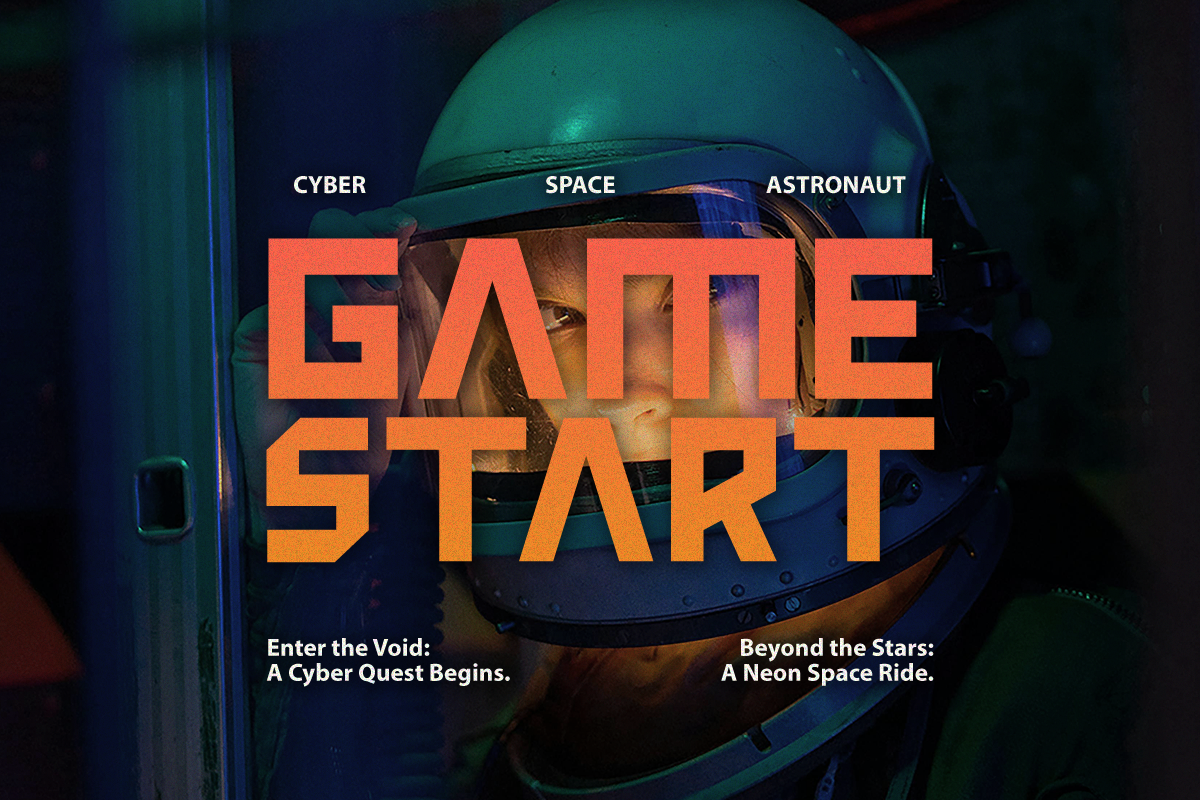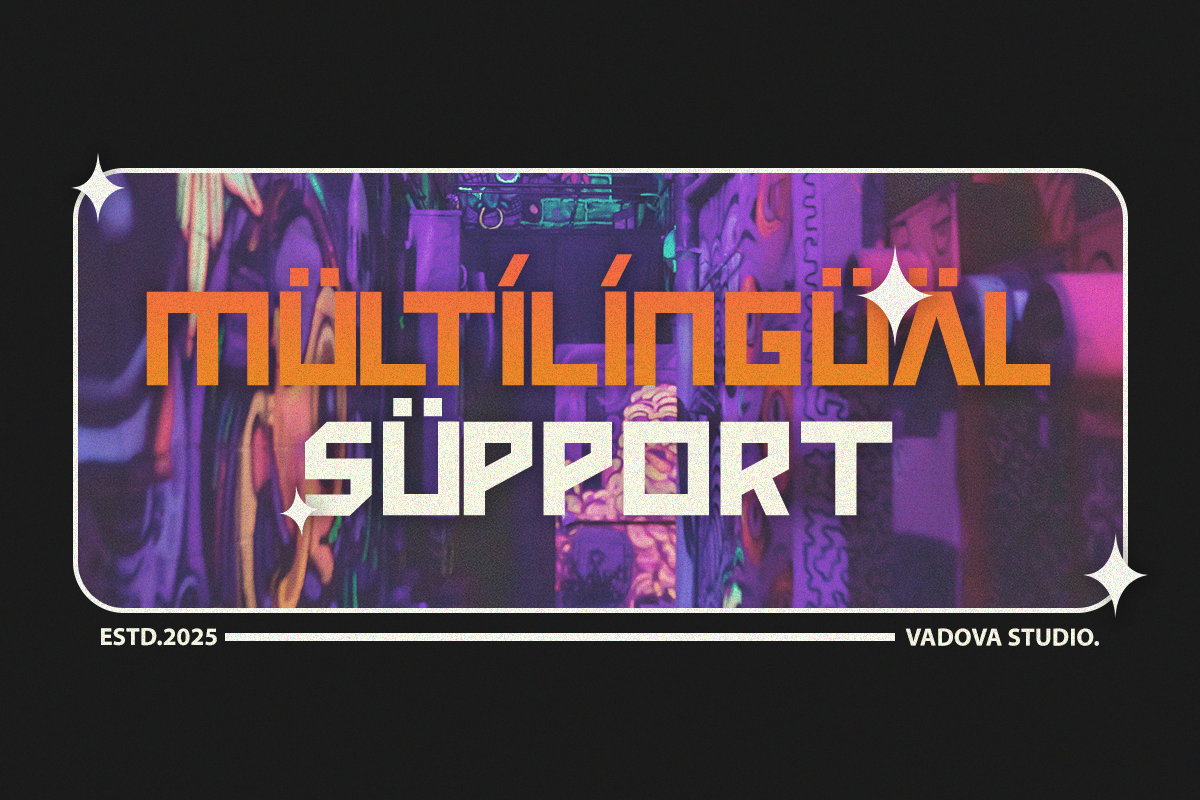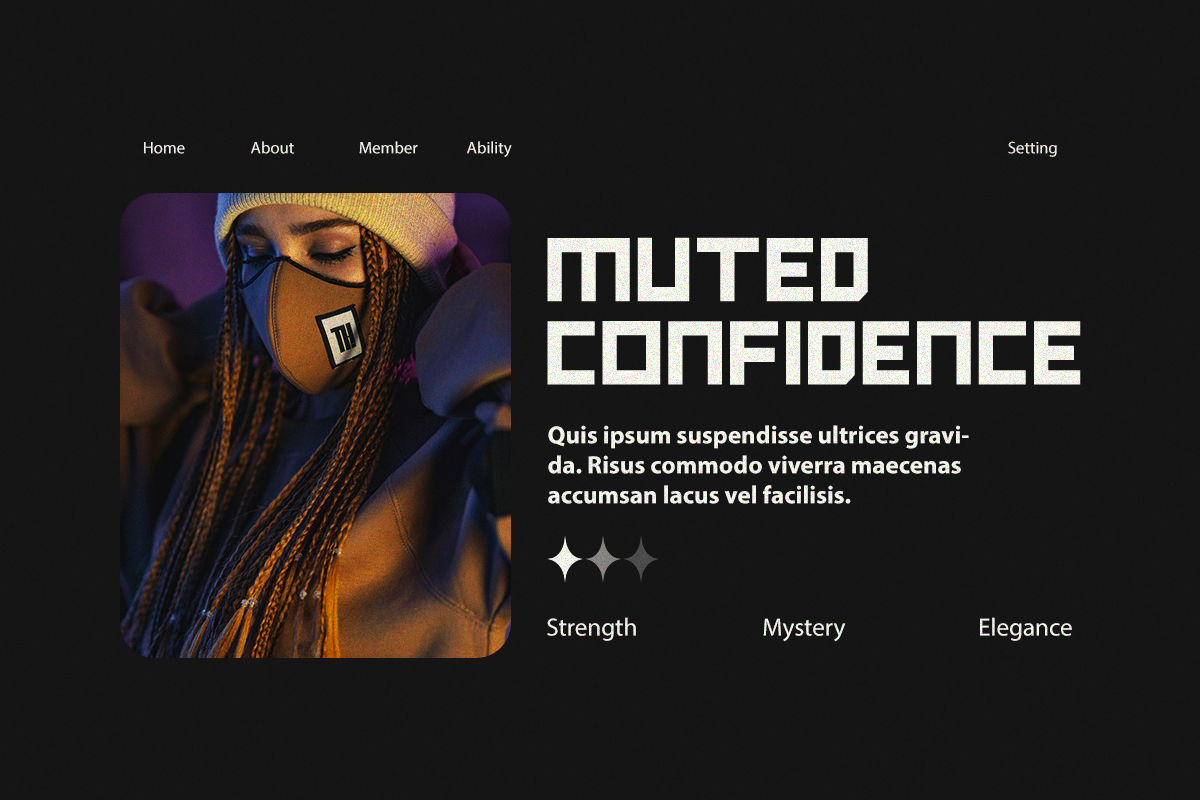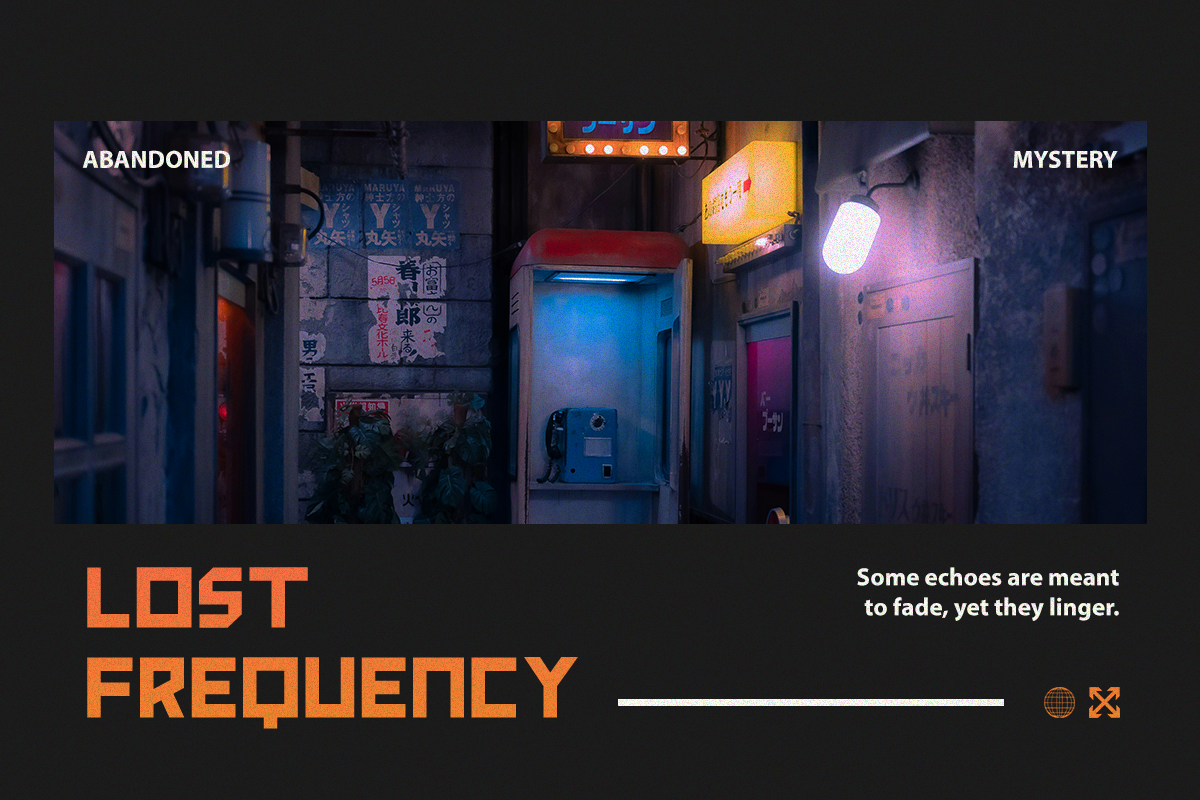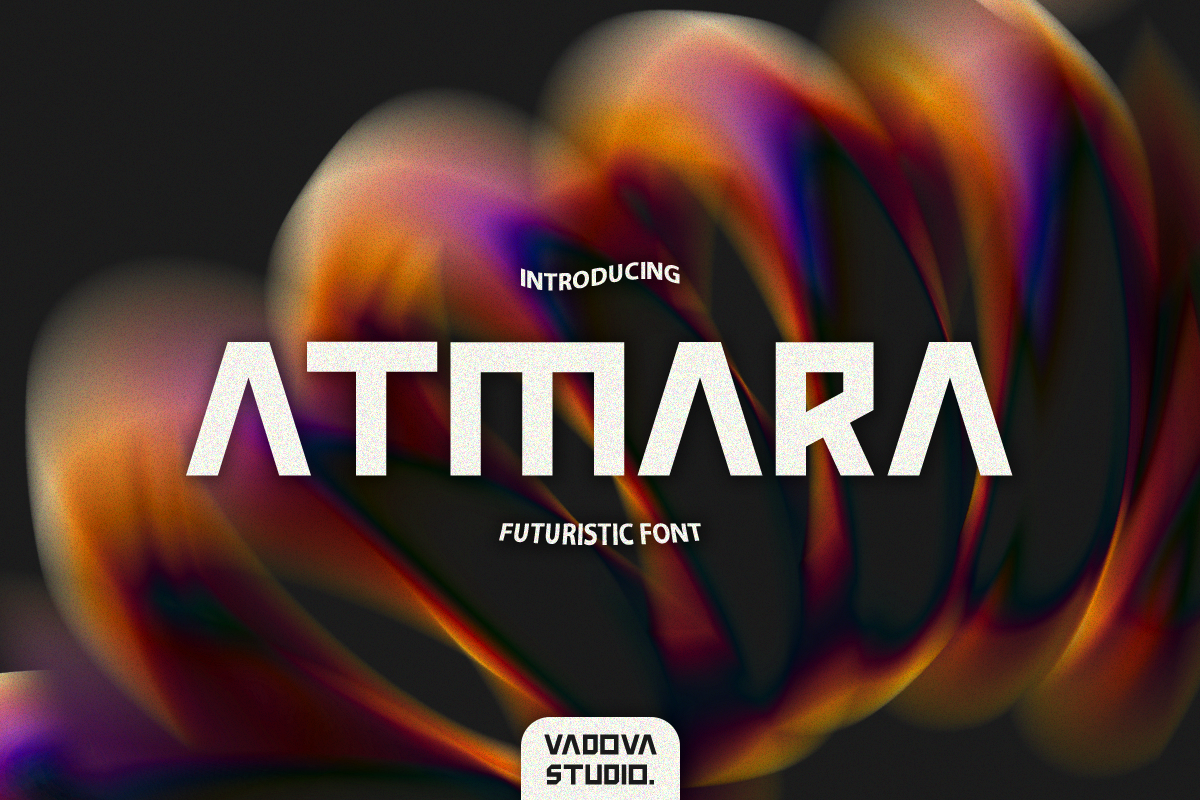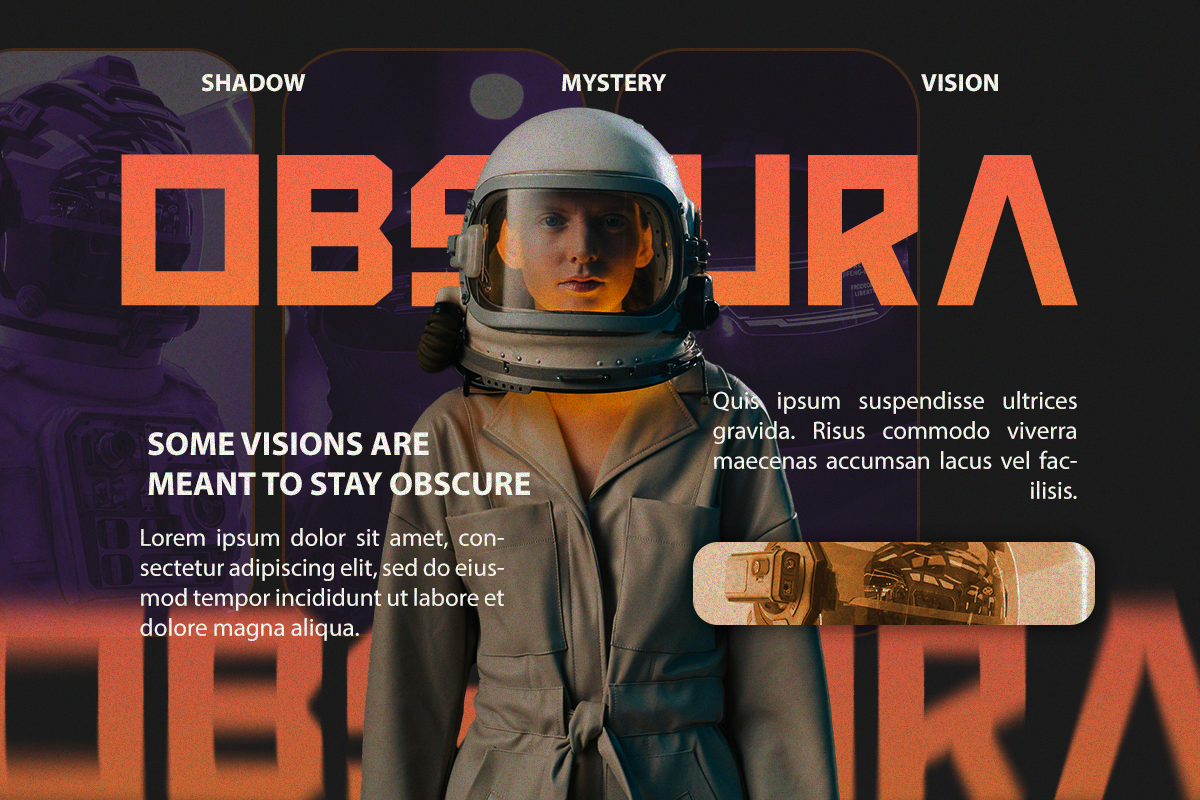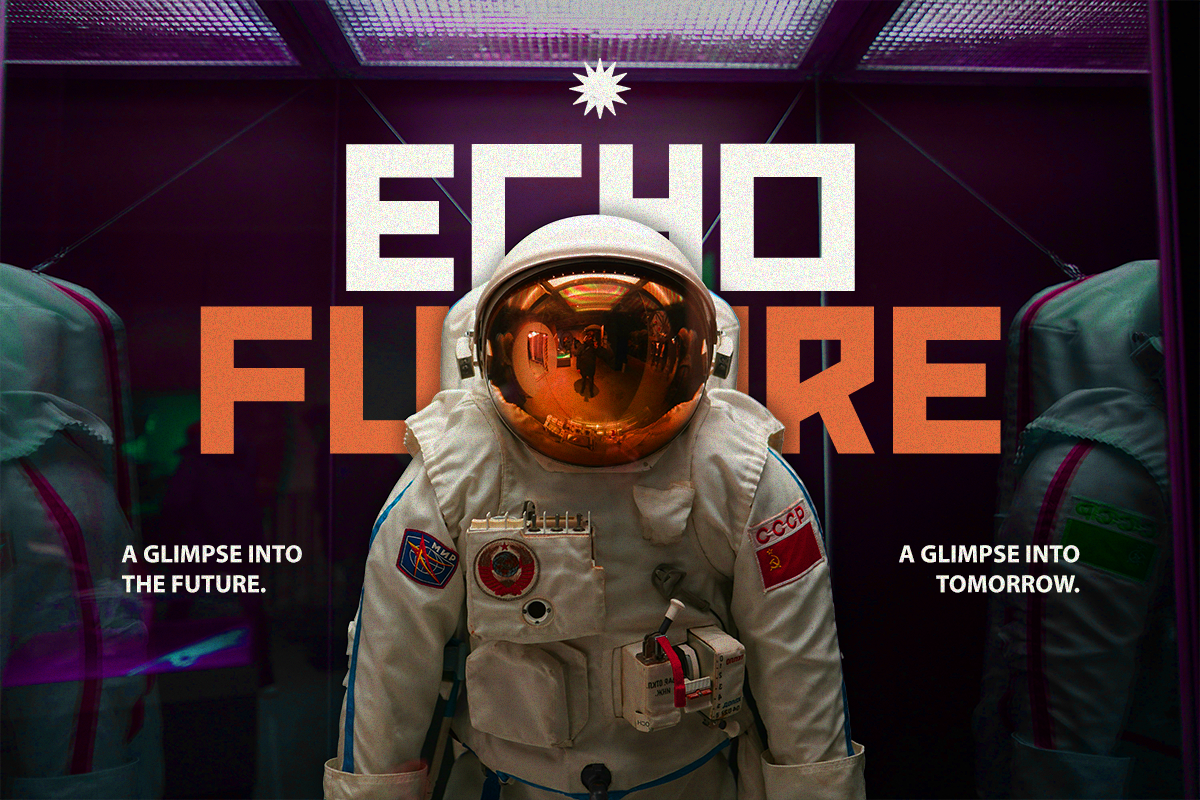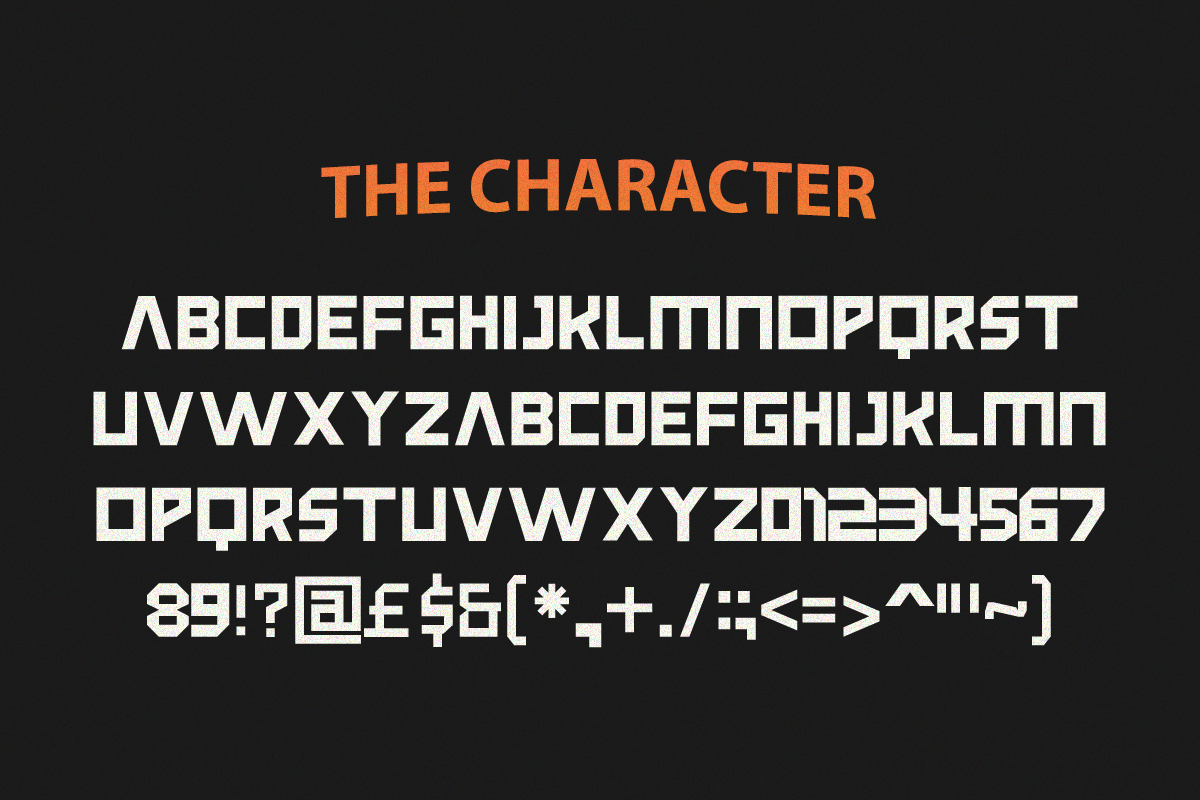
Atmara Futuristic Font
Atmara is a bold futuristic display font designed with strong geometric construction and sharp modern angles. Built for high-impact visuals, this typeface delivers a powerful sci-fi aesthetic combined with clean structural balance. Featuring uppercase, lowercase, numerals, punctuation, and multilingual support, Atmara is crafted for standout headlines and contemporary branding.
Atmara is highly relevant for technology brands, gaming studios, esports teams, startup identities, futuristic event posters, YouTube thumbnails, app branding, NFT visuals, and digital product marketing. Its sharp geometric construction makes it ideal for projects that aim to communicate innovation, strength, and forward-thinking design.
- Bold geometric construction with sharp angular letterforms
- Futuristic structural cuts that create a strong sci-fi presence
- Clean, modular shapes inspired by digital and tech aesthetics
- Consistent stroke weight for a solid and impactful visual tone
- Precise spacing optimized for powerful headlines and logo display
- Technology and startup brand identity systems seeking a bold futuristic tone
- UI/UX hero headers for apps, SaaS platforms, and digital products
- Gaming logos, esports branding, and streaming graphics
- Event posters for tech conferences, digital festivals, and sci-fi themes
- YouTube thumbnails, NFT projects, and cyber-inspired marketing visuals
- Social media graphics for innovation-focused brands